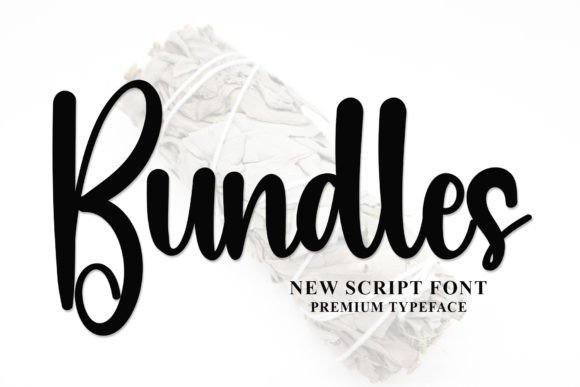
Bundles Font: Elevate Your Designs with Elegance and Class
In the world of typography, fonts play a crucial role in conveying the tone and personality of a design project. Among the numerous font styles available, handwritten fonts have gained immense popularity for their unique and personal touch. One such font that has caught the attention of designers and typography enthusiasts is the Bundles Font. In this article, we’ll explore the features, benefits, and usage of Bundles Font, and how it can add elegance and class to your design projects.
What is Bundles Font?
Bundles Font is a trendy handwritten font with a contemporary atmosphere and impeccable form, inspired by timeless classic calligraphy. Its elegant and refined strokes make it an ideal choice for designs that require a touch of sophistication and luxury. The font’s unique blend of traditional and modern elements gives it a distinctive look that sets it apart from other fonts in the same category.
Key Features of Bundles Font
- Handwritten style: Bundles Font boasts a beautiful handwritten style that exudes elegance and refinement.
- Contemporary atmosphere: The font’s modern and sleek design makes it perfect for contemporary designs that require a fresh and stylish look.
- Impeccable form: Bundles Font features precise and clean lines, ensuring that your designs look professional and polished.
- Timeless classic calligraphy inspiration: The font’s inspiration from classic calligraphy gives it a sense of tradition and heritage, making it suitable for designs that require a touch of nostalgia.
Benefits of Using Bundles Font
Bundles Font offers several benefits that make it an excellent choice for designers and typography enthusiasts. Some of the key benefits include:
- Elegance and class: The font’s elegant and refined strokes add a touch of sophistication and luxury to any design project.
- Versatility: Bundles Font is suitable for a wide range of design projects, including logos, branding, packaging, and more.
- Easy to read: The font’s clear and clean lines ensure that your text is easy to read, making it perfect for designs that require a high level of legibility.
- Unique and distinctive: Bundles Font’s unique blend of traditional and modern elements makes it stand out from other fonts in the same category.
Usage of Bundles Font
Bundles Font is a versatile font that can be used for a wide range of design projects. Here are some ideas on how to use this beautiful font:
- Logos and branding: Use Bundles Font to create elegant and sophisticated logos and branding materials that reflect your company’s values and personality.
- Packaging design: Add a touch of luxury and sophistication to your packaging designs with Bundles Font.
- Advertising and marketing: Use Bundles Font to create eye-catching and effective advertising and marketing materials that grab attention and convey your message.
- Wedding and event designs: Bundles Font is perfect for wedding and event designs, such as invitations, programs, and place cards.
Tips for Using Bundles Font
Here are some tips to help you get the most out of Bundles Font:
- Use it sparingly: Bundles Font is a elegant and refined font, so use it sparingly to avoid overwhelming your design.
- Pair it with other fonts: Experiment with pairing Bundles Font with other fonts to create a unique and visually appealing design.
- Adjust the size and color: Adjust the size and color of Bundles Font to suit your design needs and ensure that it stands out.
- Experiment with different styles: Try out different styles and variations of Bundles Font to find the one that works best for your design.
In conclusion, Bundles Font is a beautiful and elegant handwritten font that can add a touch of sophistication and luxury to any design project. Its unique blend of traditional and modern elements makes it a versatile font that can be used for a wide range of designs. With its impeccable form, clear lines, and easy-to-read style, Bundles Font is an excellent choice for designers and typography enthusiasts looking to elevate their designs.
- What is Bundles Font? Bundles Font is a trendy handwritten font with a contemporary atmosphere and impeccable form, inspired by timeless classic calligraphy.
- What are the benefits of using Bundles Font? Bundles Font offers several benefits, including elegance and class, versatility, easy readability, and uniqueness.
- How can I use Bundles Font? Bundles Font can be used for a wide range of design projects, including logos, branding, packaging, advertising, and more.